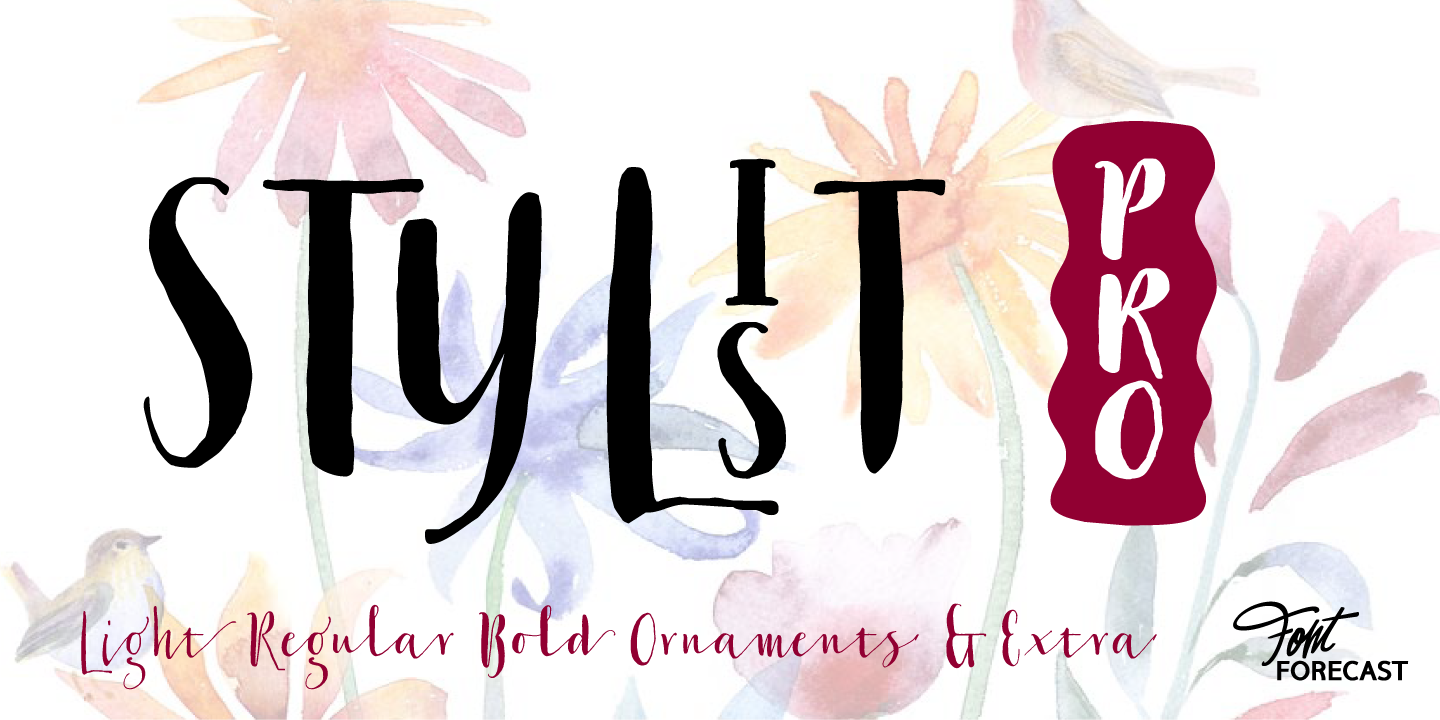
Stylist Pro Font is ideal for professional hair salon branding, beauty studio signage, fashion stylist portfolios, makeup artist business cards, beauty product packaging, cosmetic brand identity, fashion magazine headlines, style blog designs, personal styling services, beauty influencer materials, salon appointment systems, and professional beauty industry communications. This sophisticated typeface brings contemporary styling expertise to projects requiring beauty industry credibility and professional aesthetic appeal.
What makes Stylist Pro Font so exciting is its exceptional ability to embody the precision and artistic vision of professional styling through meticulously crafted letterforms that reflect the attention to detail and creative expertise essential to the beauty industry. The font features elegantly refined characters with contemporary sophistication and professional polish that mirror the transformative artistry of skilled stylists. Its versatile character conveys expertise and creativity while maintaining flawless readability, making it perfect for beauty professionals seeking to communicate skill, style authority, and the artistic excellence that defines professional styling services with authentic industry credibility.
The Stylist Pro Font family includes multiple professional weights and styling-optimized variations that showcase its beauty industry character while providing comprehensive design flexibility for various styling and beauty applications. Each variant maintains the original's professional sophistication while offering extensive options for creating polished typographic compositions that honor styling expertise and beauty industry standards.
Whether you're developing beauty professional brand identities, creating styling service marketing materials, or designing beauty industry communications, Stylist Pro Font Free Download offers the perfect combination of styling expertise and contemporary functionality. This exceptional typeface brings authentic beauty industry sophistication to design projects, making it an indispensable choice for designers seeking typography that effectively communicates professional styling excellence, beauty expertise, and the artistic precision of professional beauty services with genuine industry authority.